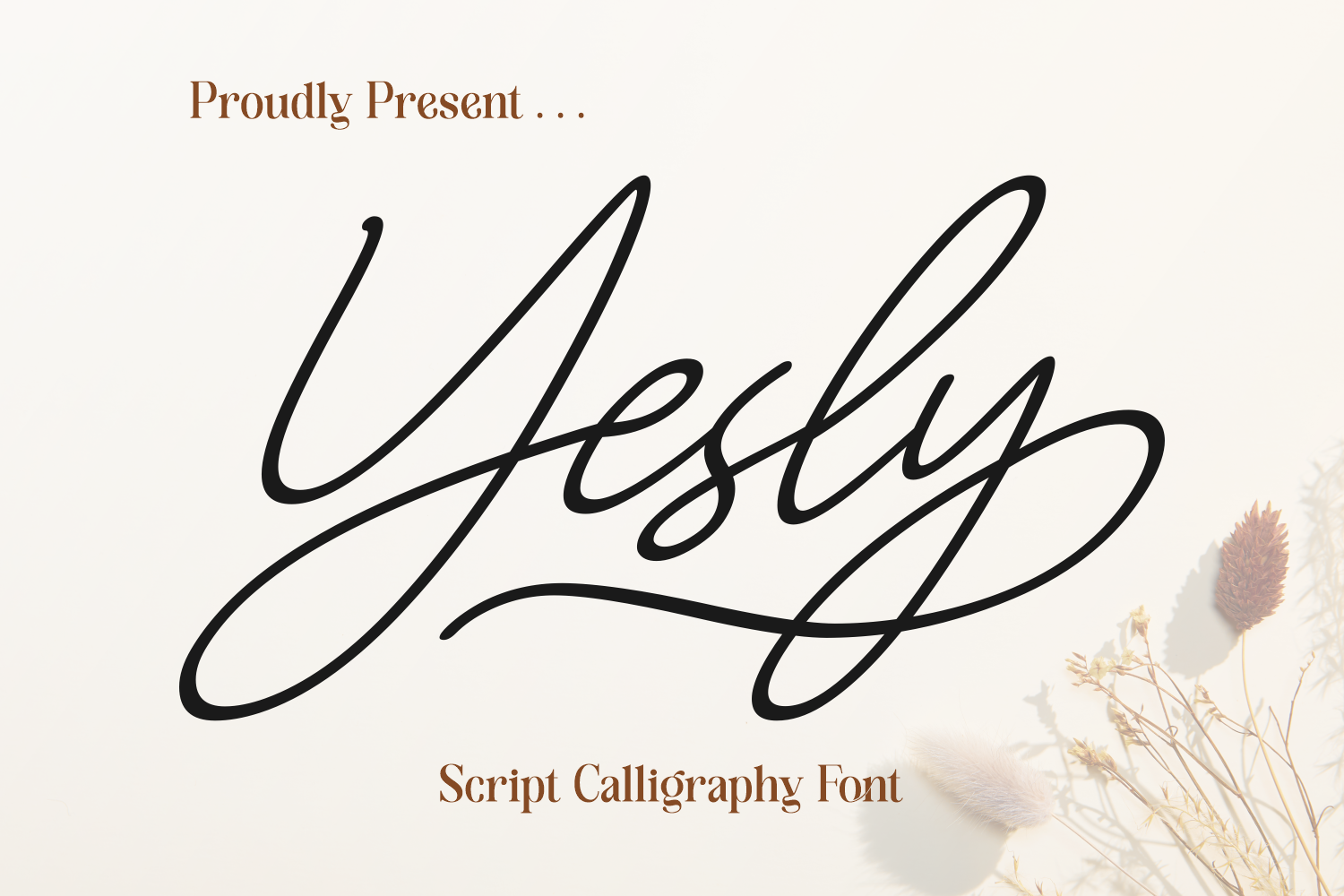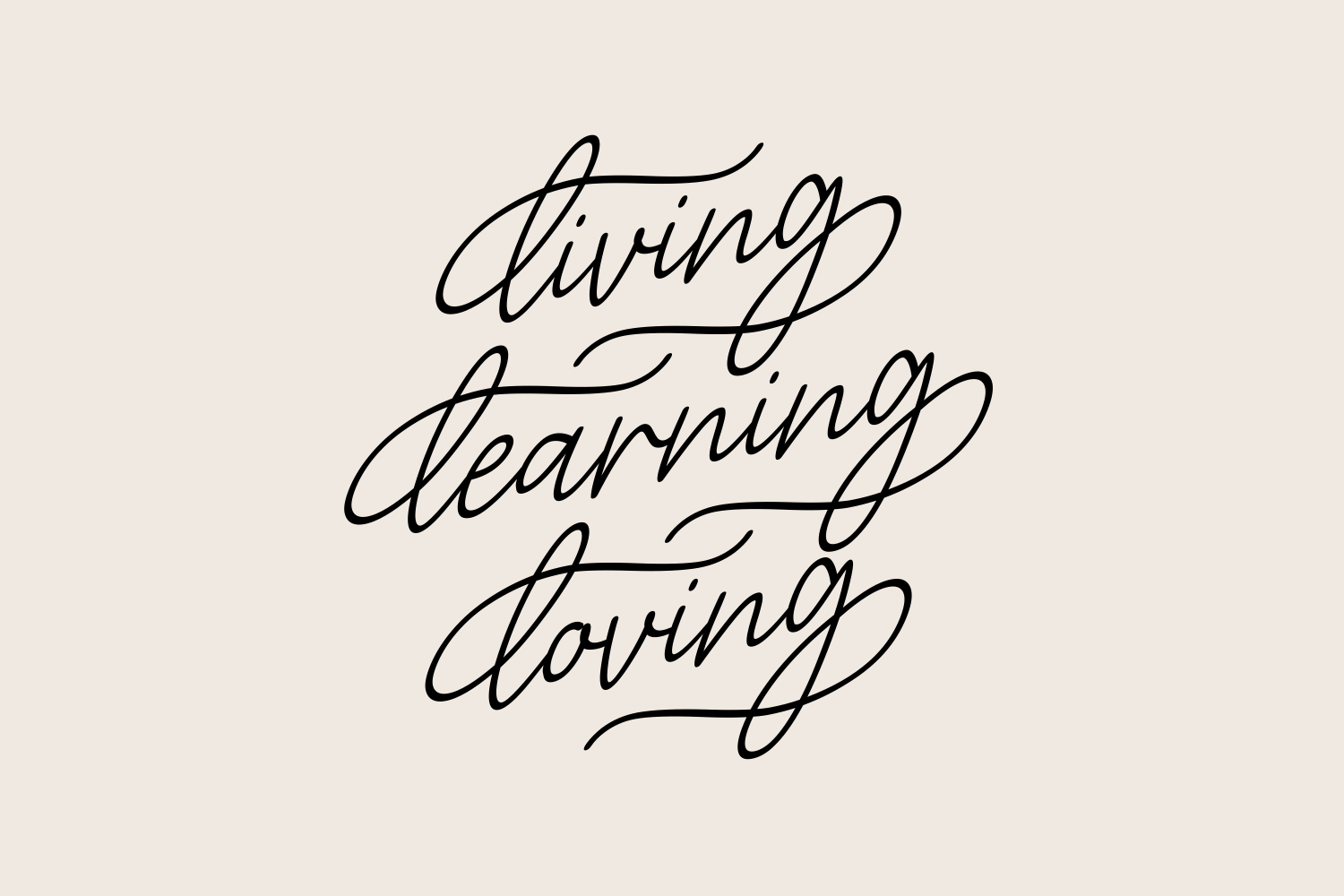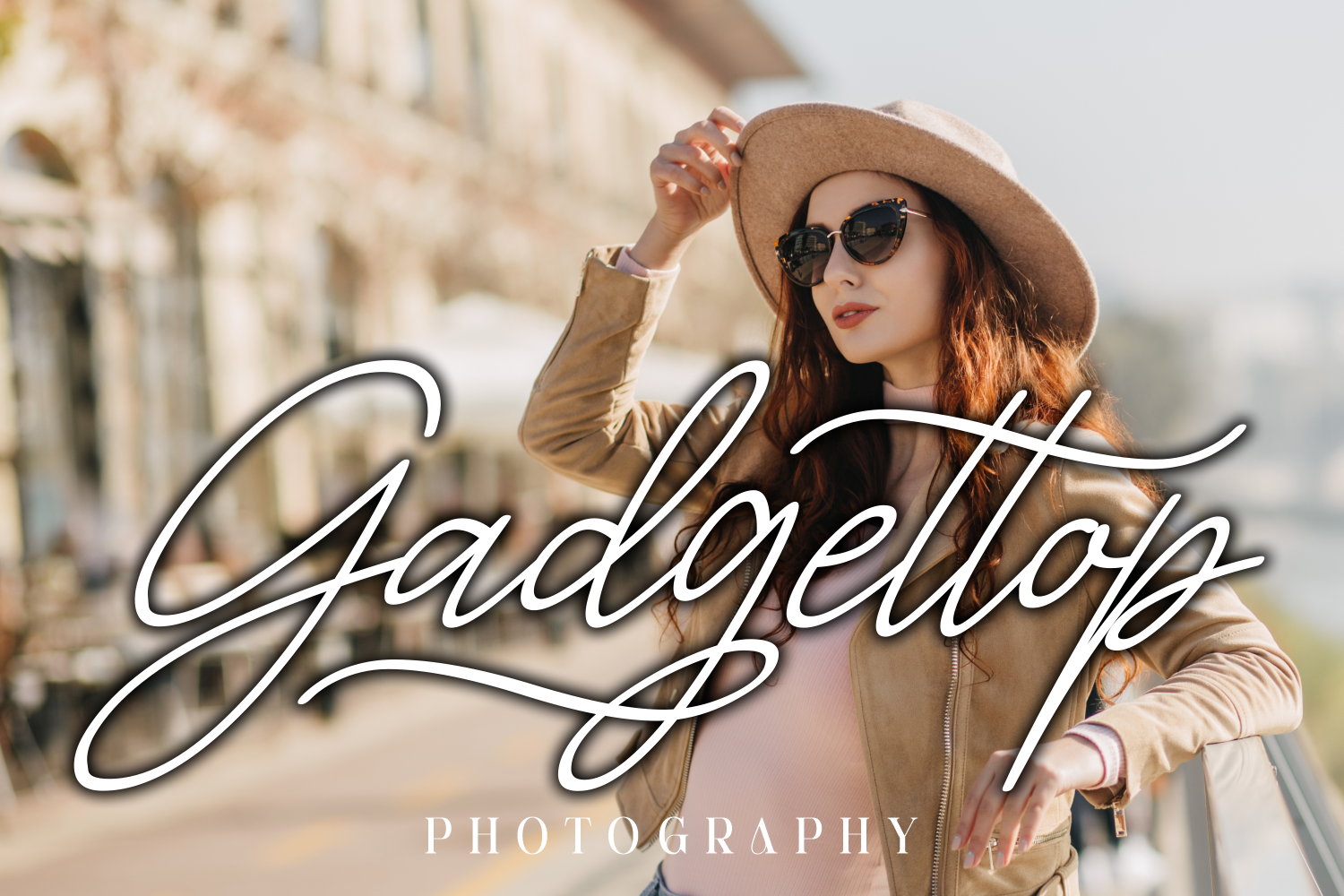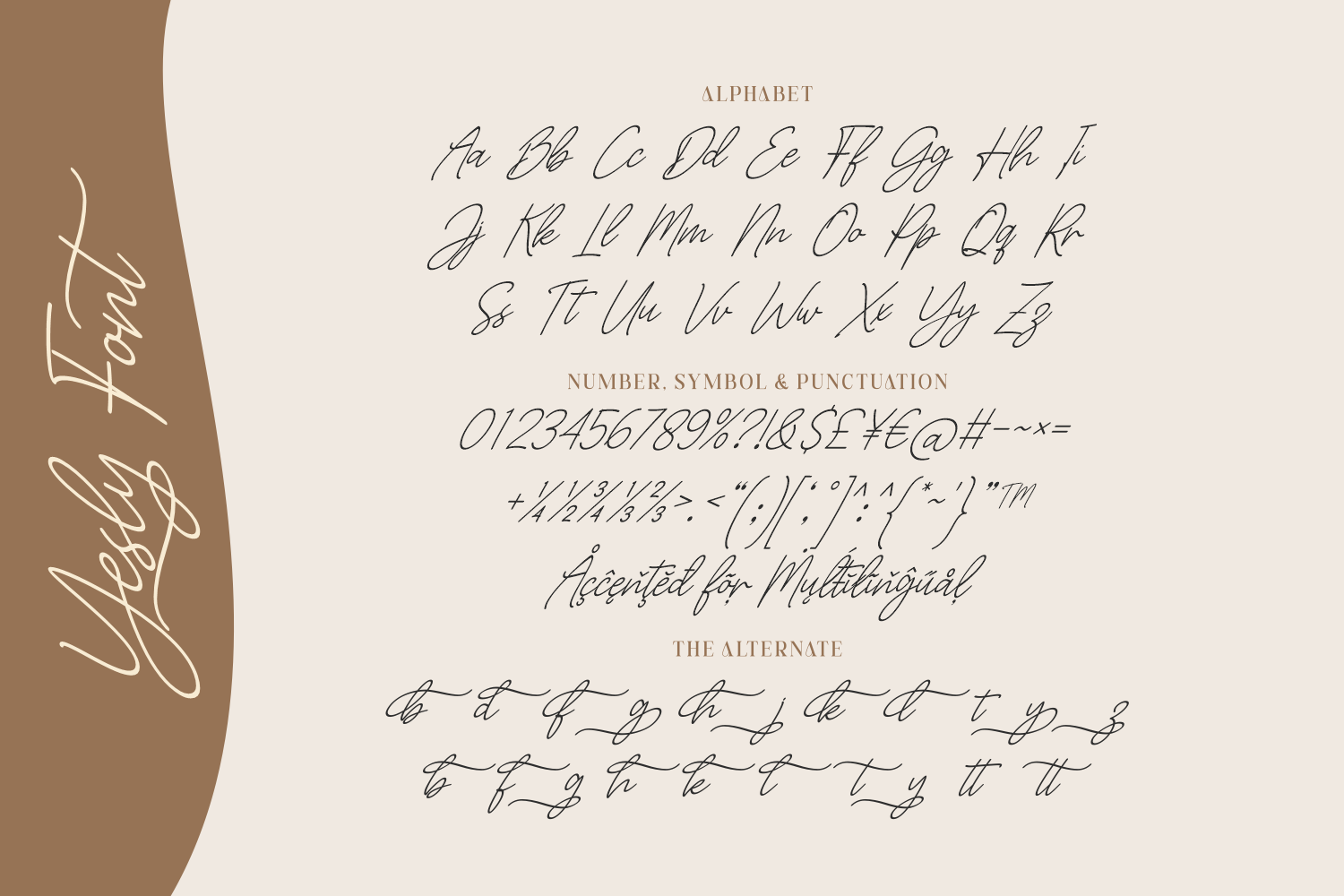
Yesly is a premium script calligraphy font that radiates luxury and refinement. With its dramatic loops and flowing lines, it’s made for high-end fashion, editorial spreads, wedding suites, and upscale personal branding.
This font captures a feeling of timeless grace and confidence, ensuring your message always leaves an impression. If you want your designs to speak elegance, Yesly is the perfect choice.